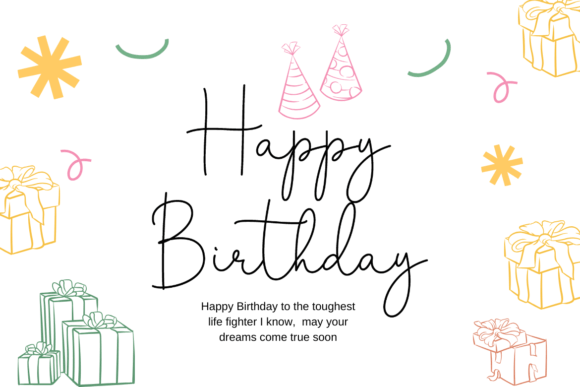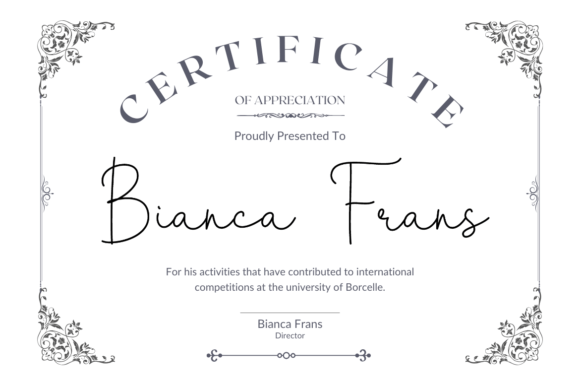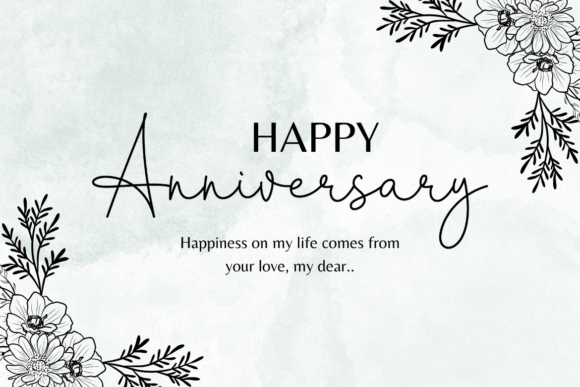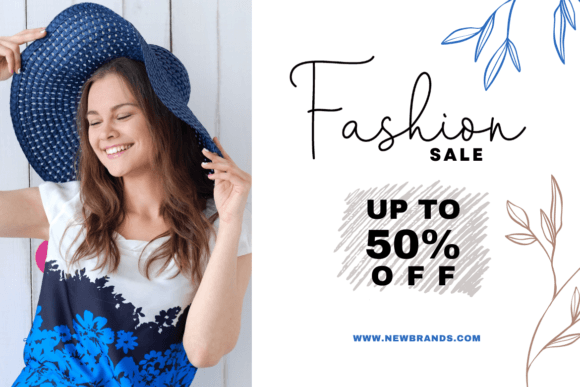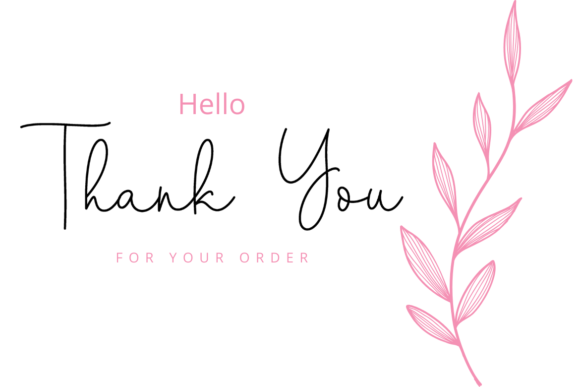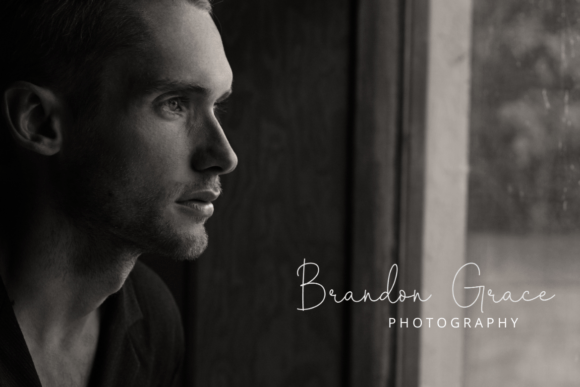
Introduction to Fairyrose Font
As designers, we’ve all been there – staring at a blank page, trying to bring our creative vision to life. The perfect font can be the game-changer that elevates our designs from ordinary to extraordinary. And when it comes to adding a touch of elegance and sophistication, few fonts shine as brightly as the Fairyrose Font.
This stunning Monoline Signature Script Typeface is a masterclass in simplicity and beauty, delivering a timeless quality that’s perfect for a wide range of design projects, from wedding invitations and logo branding to delicate packaging and more. With its flowing, signature-style script and soft, delicate curves, Fairyrose Font is an ideal choice for designers looking to add a touch of magic to their creative projects.
- Fairyrose Font is a high-quality, unique design resource ideal for creative projects, offering a delicate and whimsical touch.
- The font is available in a single weight, making it perfect for adding a touch of elegance to your creative project without overwhelming the design.
- Perfect for use in digital design, including web design, graphic design, and print design, due to its versatility and high-quality design.
Honest Review: Fairyrose Font
As a designer, I’m always on the lookout for high-quality design resources that can elevate my creative projects. The Fairyrose Font is one such resource that I’ve been using lately, and I’m excited to share my honest review with you.
What works well: ✨ The Fairyrose Font is a beautiful, elegant script font that is perfect for creating whimsical and romantic designs. It’s great for titles, headings, and even body text, thanks to its high-quality design. I love how it looks especially when paired with a transparent background, really making the text pop.
Overall, I’m really impressed with the Fairyrose Font. It’s a great design resource for personal projects or small-scale creative endeavors. With its high-quality design and versatility, I’d definitely recommend it to fellow designers looking for a unique font to add some magic to their designs.
Tips and Use Cases
For the most out of Fairyrose Font, use it with a transparent background to add a touch of elegance to your design. This font is ideal for creative projects, such as invitations, brochures, and social media graphics. It’s also a great choice for branding and marketing materials, where a high-quality design resource is essential.